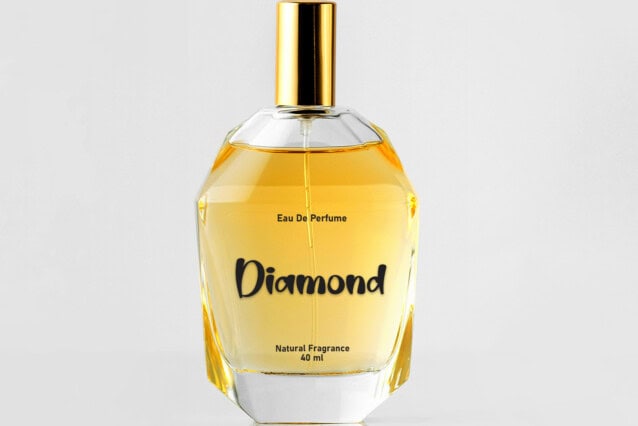
Sweet Rainbow Display Font
Sweet Rainbow Display Font is a sweet and friendly handwritten font. Its natural and unique style makes it incredibly fitting to a large pool of designs. The only limit is your imagination!